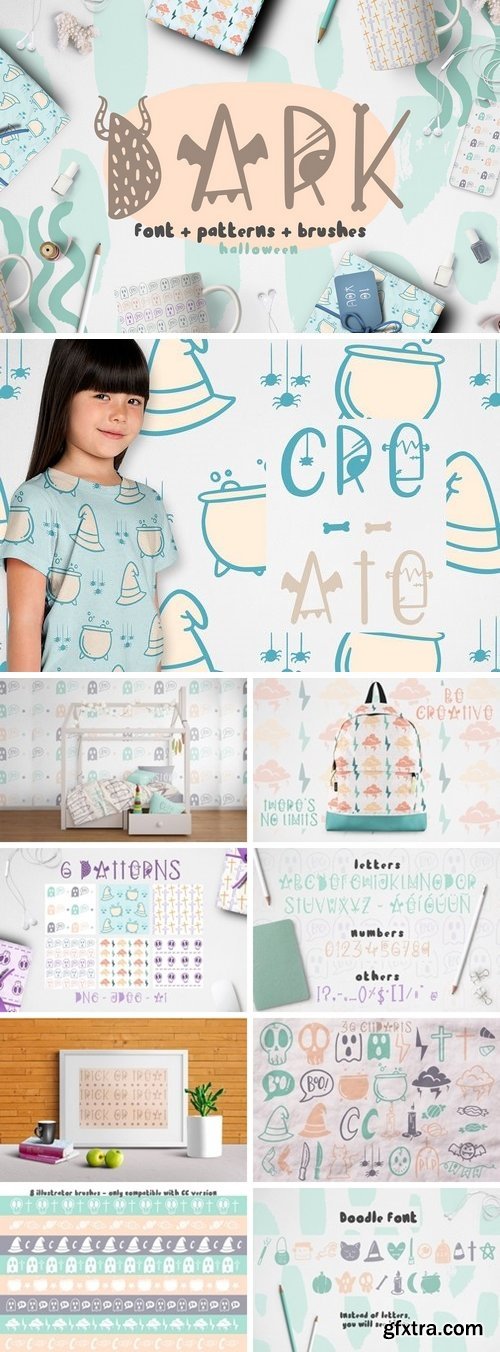
Dark font + patterns, brushes and MORE! October it's finally here and we all know what that means: halloween! Dark is a playful font with a lot of personality, and this product also brings amazing patterns, illustrator brushes and a doodle font. Amazing right?